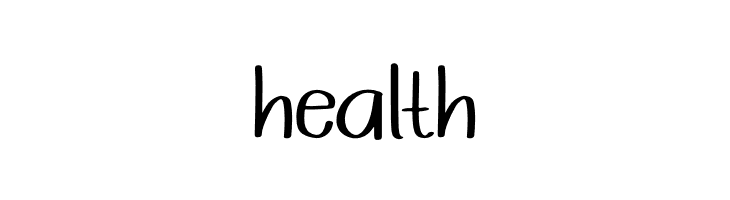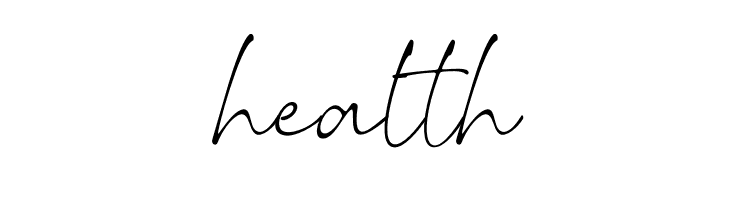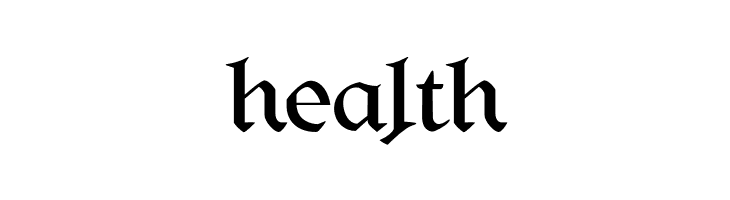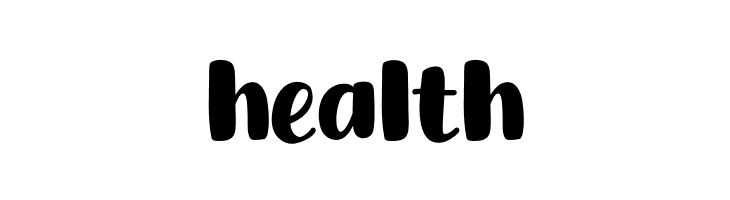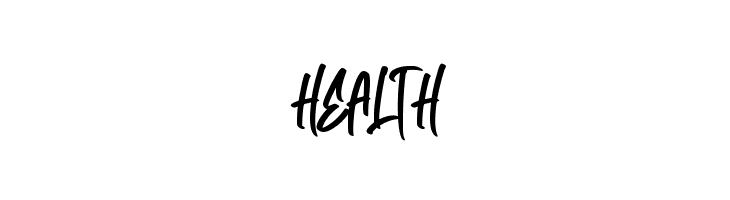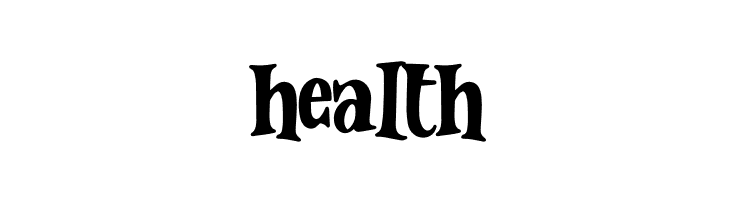
A bold, modern font with a halftone effect and dynamic, futuristic style.
A bold, angular font with a geometric style, perfect for impactful headlines.
A bold, angular 3D font with a futuristic and dynamic style.
A cursive, handwritten font with elegant, flowing strokes.
An elegant, flowing script font with a sophisticated and artistic flair.
A playful, whimsical script font with flowing, interconnected letters.
A playful, handwritten font with flowing, cursive-like strokes.
A dynamic, brush-style handwritten font with expressive strokes.
A playful, handwritten font with bold, dynamic strokes.
An elegant, flowing script font with a sophisticated and artistic style.
A playful, hand-drawn font with a whimsical and casual style.
A bold, dynamic script font with sweeping strokes and modern flair.
A bold, energetic handwritten font with dynamic and fluid strokes.
A whimsical, decorative font with vine-like embellishments and a hand-drawn appearance.
A bold, fluid script font with expressive strokes and elegant flow.
A graceful and flowing script font with elegant cursive connections.
An elegant and flowing script font with graceful, sweeping strokes.
A flowing, cursive font with interconnected letters and a playful elegance.
A bold, expressive handwritten font with thick, flowing strokes.
A bold, playful font with a mix of decorative and straightforward elements.
A bold, playful font with decorative uppercase and straightforward lowercase letters.
A modern sans-serif font with smooth, rounded edges and uniform stroke width.
A whimsical and artistic font with hand-drawn qualities and varying stroke widths.
A bold, distressed font with a vintage, rugged appearance.
A bold, distressed font with a vintage, textured appearance.
An elegant, flowing script font with a classic yet modern appeal.
A bold, geometric font with sharp, angular edges and a modern, edgy style.
An elegant, flowing script font with cursive and calligraphic elements.
A bold, expressive script font with flowing cursive letterforms.
A futuristic, bold, and angular outline font with a dynamic design.
A futuristic, geometric font with bold, angular lines and unique cutouts.